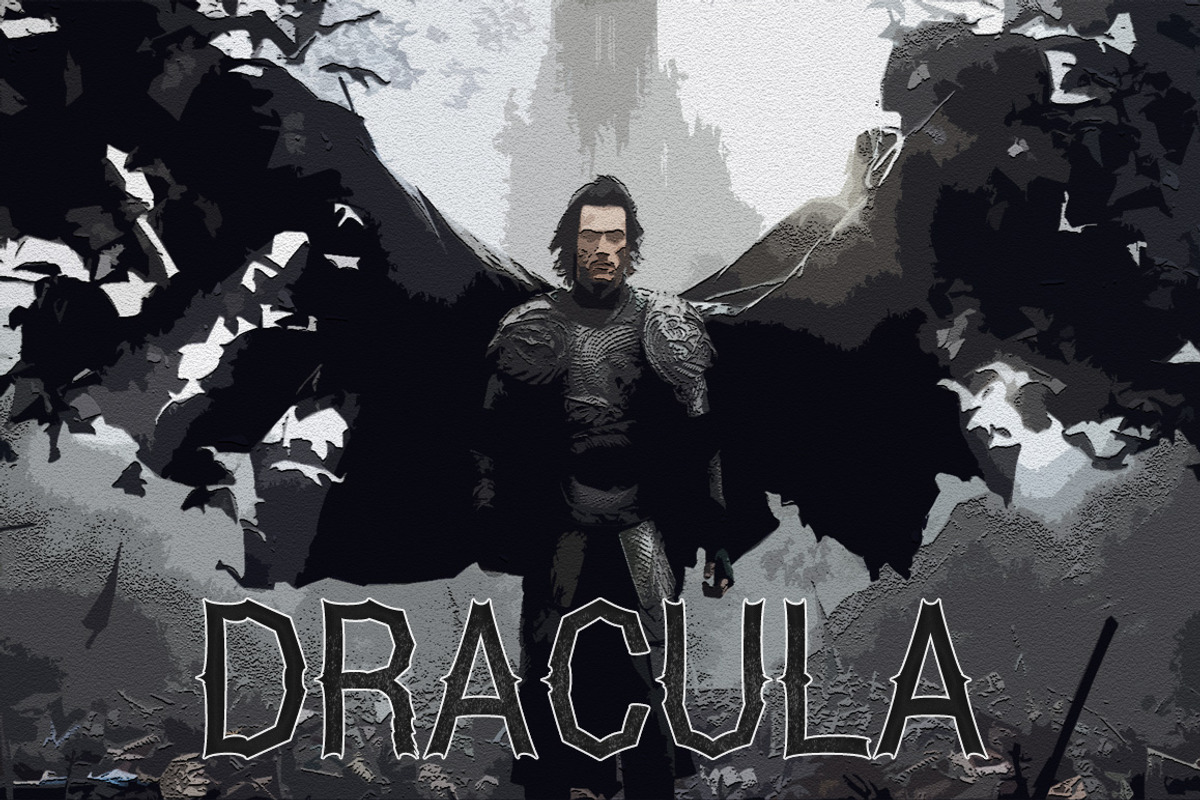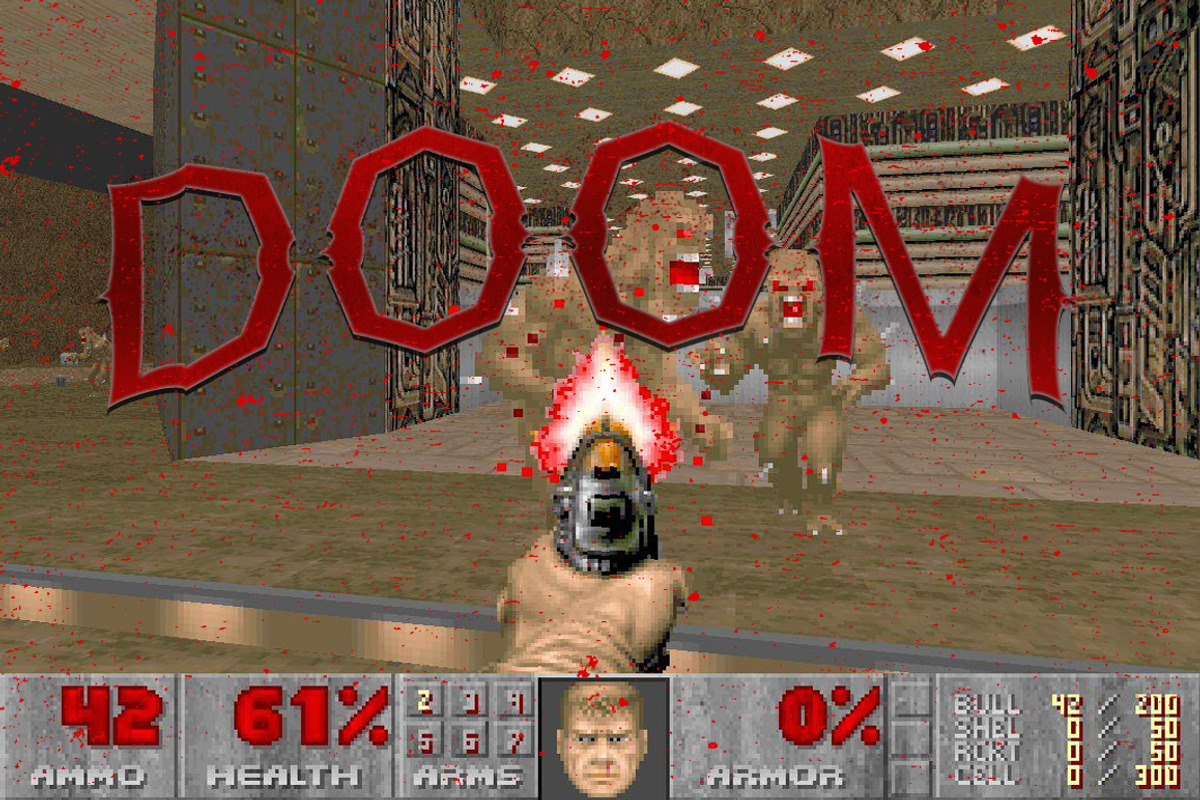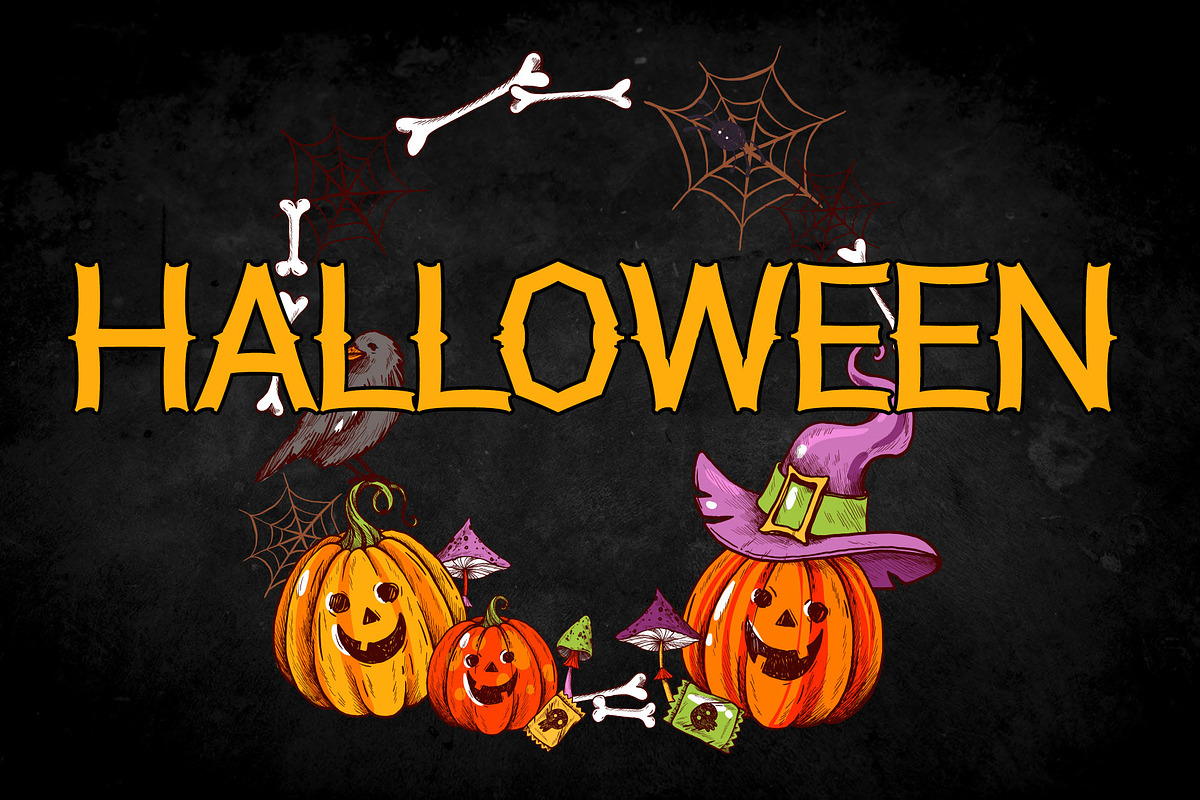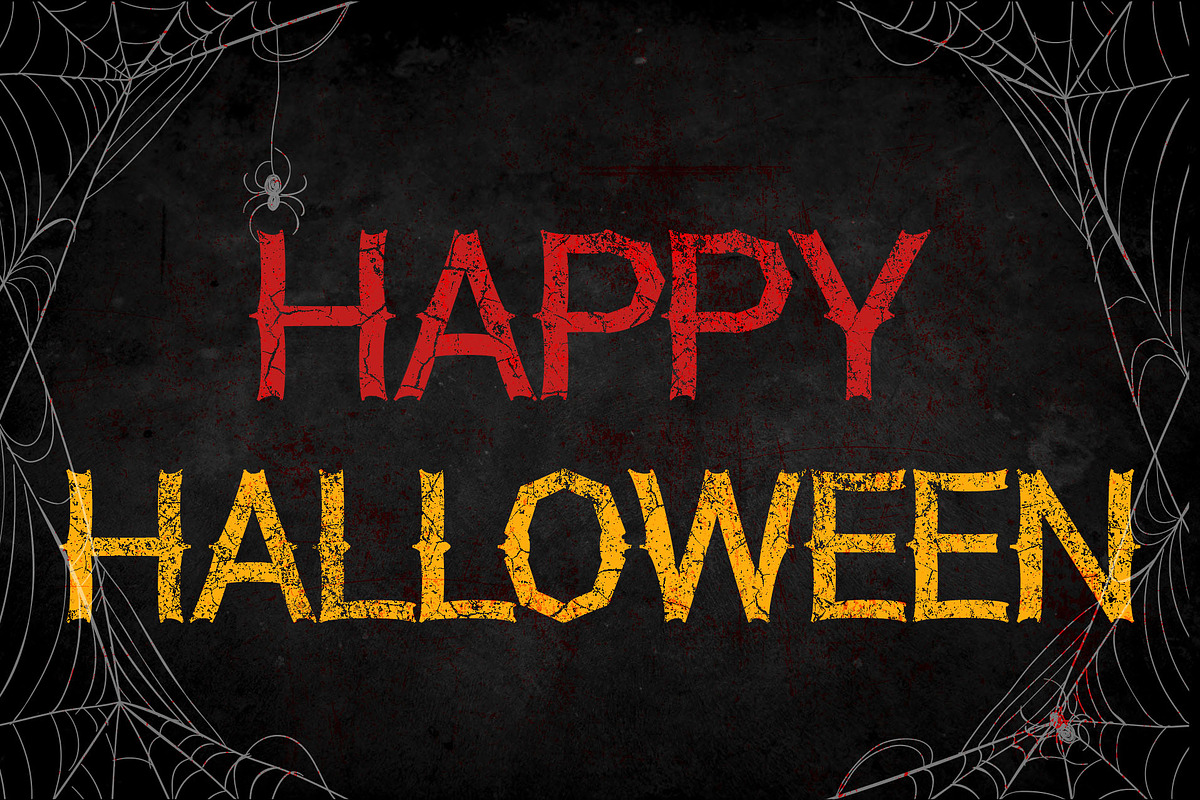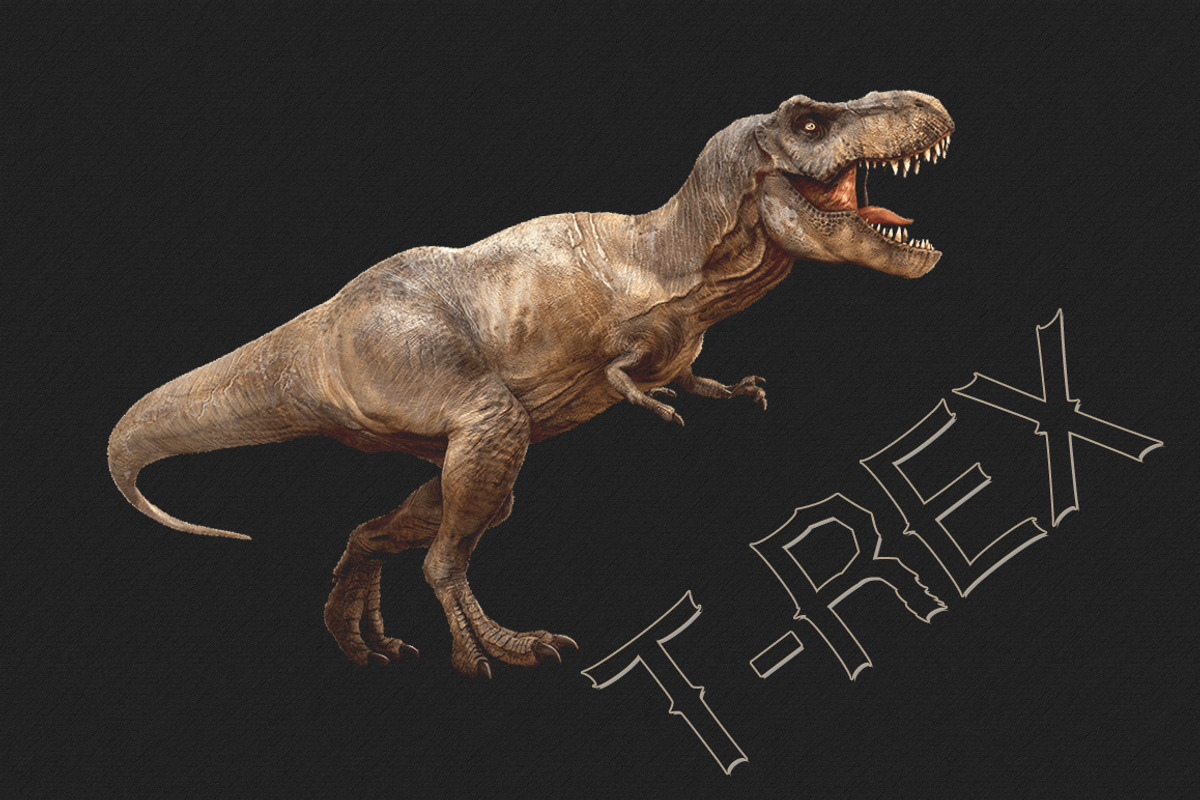
Halloween Monster Font
Halloween Monster Font by vladocar is a font selected for branding, posters, packaging, typography.
Why Halloween Monster Font is worth a look
Halloween Monster Font by vladocar fits naturally into Branding, posters, packaging, typography.